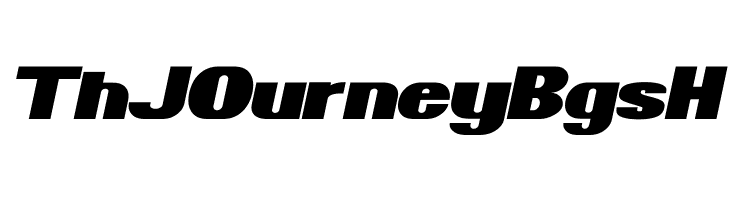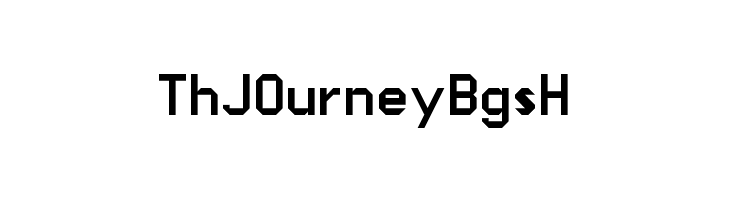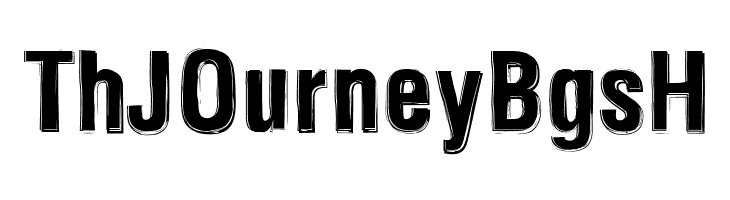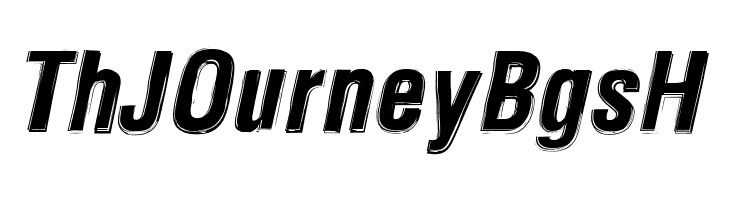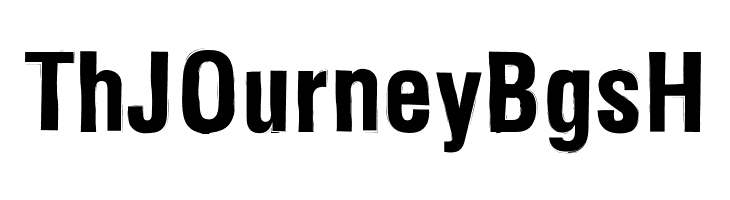
A bold, italicized font with wide characters and a modern, dynamic style.
A bold, impactful font with uniform thickness and tight spacing.
A bold, distressed font with a vintage and rugged appearance.
Bold font with a shadow effect, combining vintage and modern elements.
A bold, shadowed font with a modern and playful style.
A bold, italic font with dynamic and energetic styling.
Bold, italic font with a dynamic shadow effect.
A bold, italic font with a dynamic slant and strong presence.
A bold, italic font with a modern, dynamic style and tight character spacing.